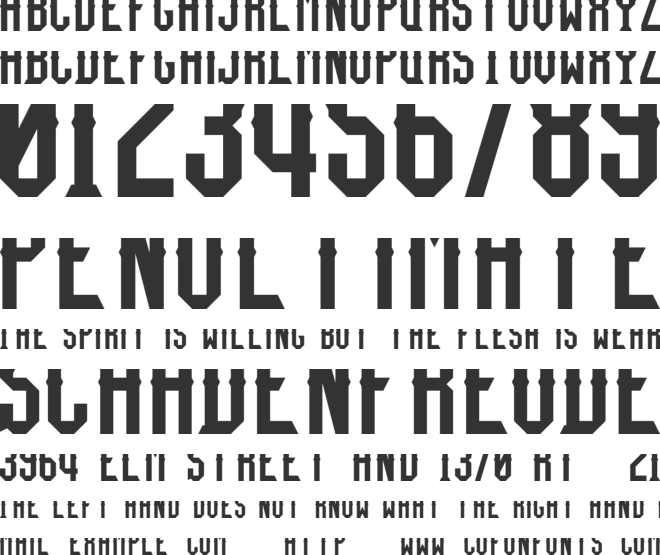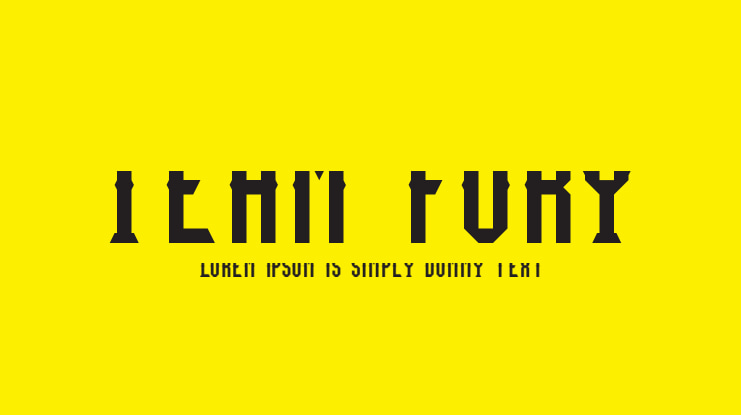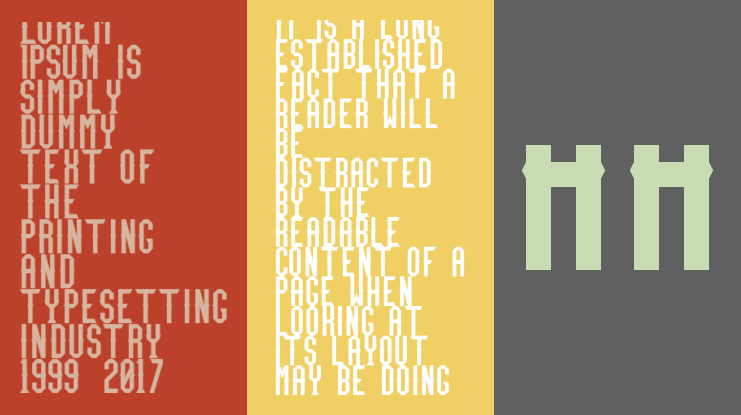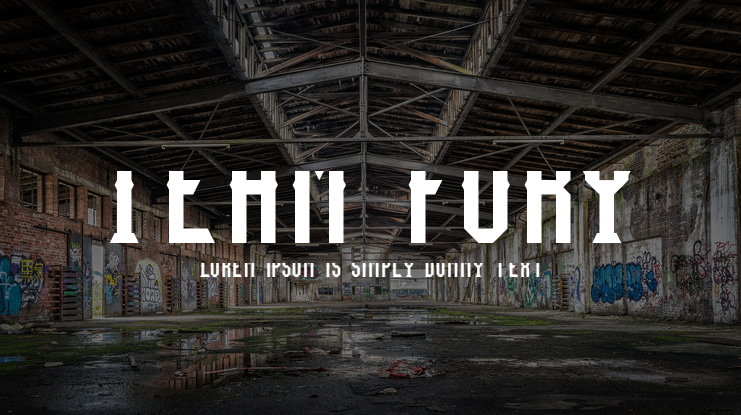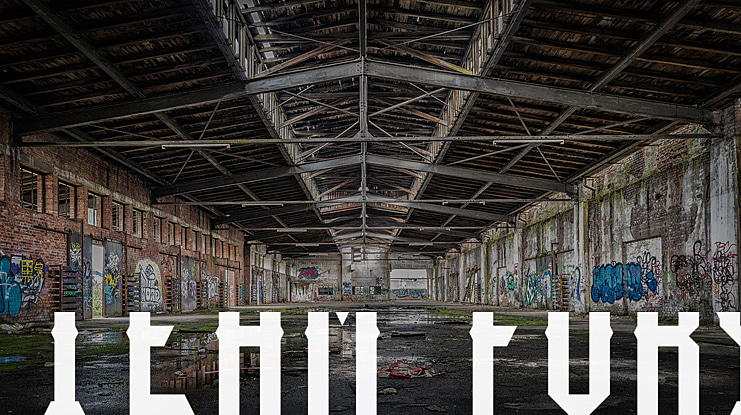
Team Fury Font
This font mixes the spirit of the Obey The Brave logo with the styling and serif locations of a classic varsity or college font, plus some studs at the median. Updated to replace the work in progress font previously uploaded!